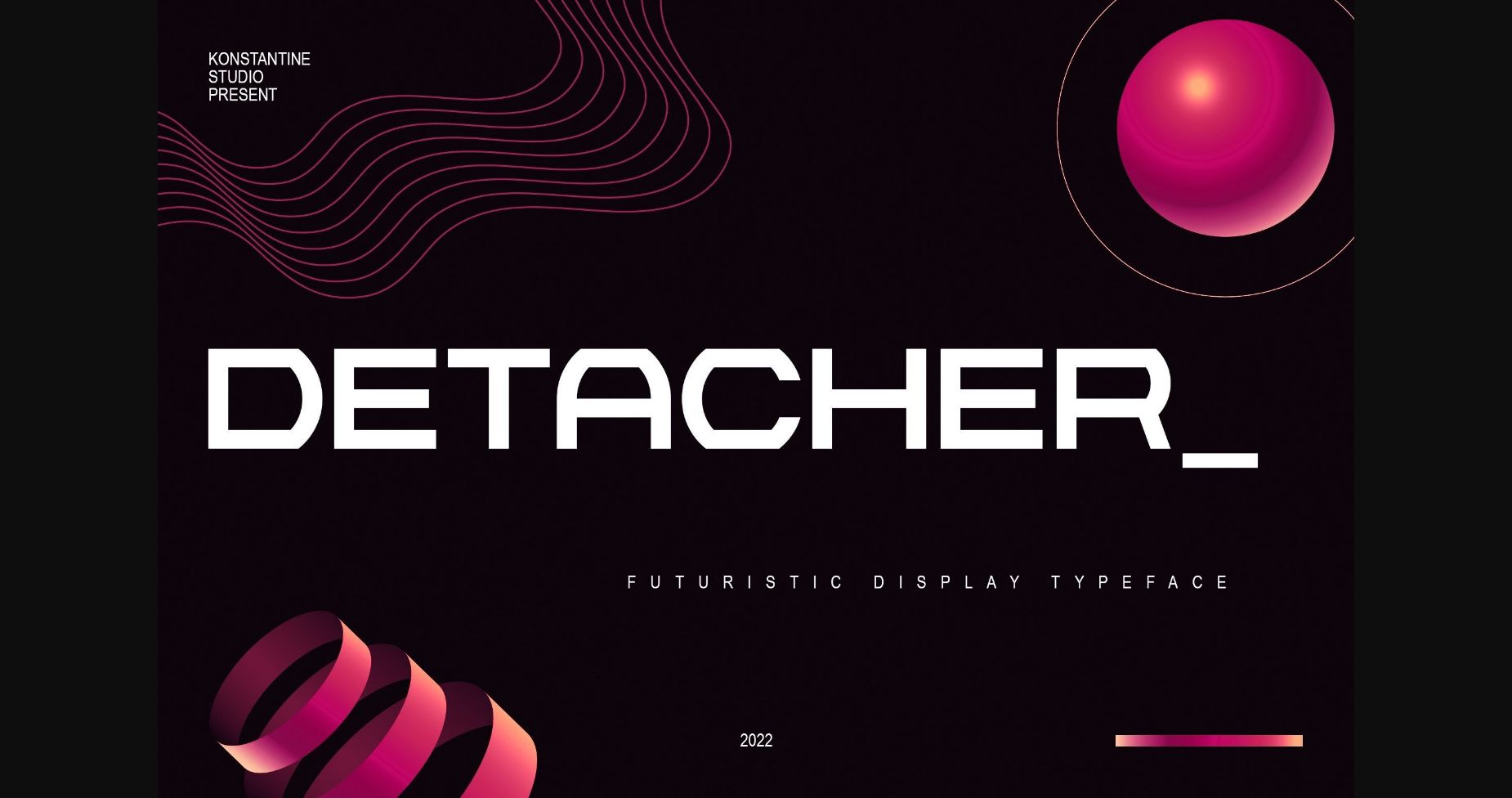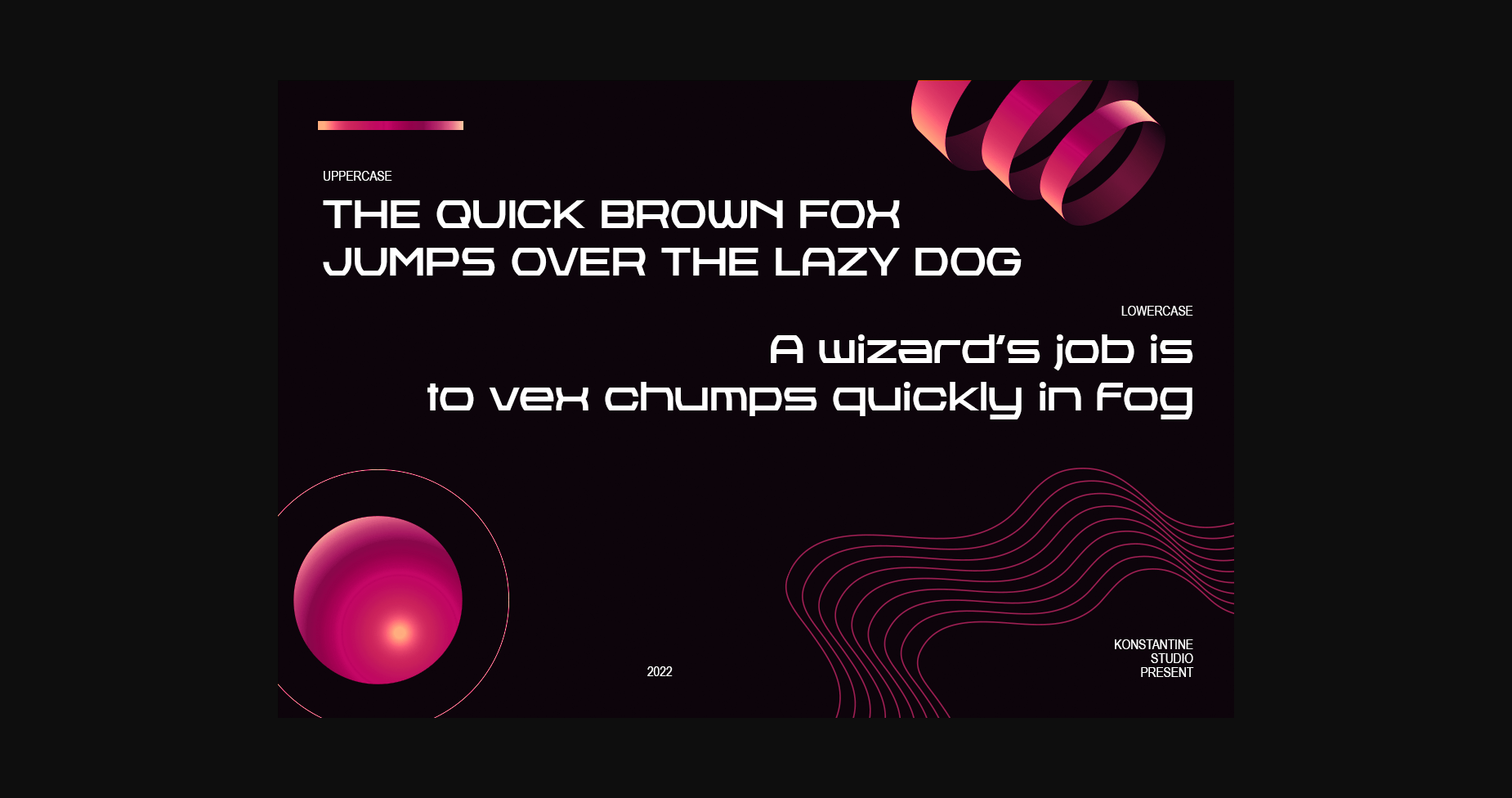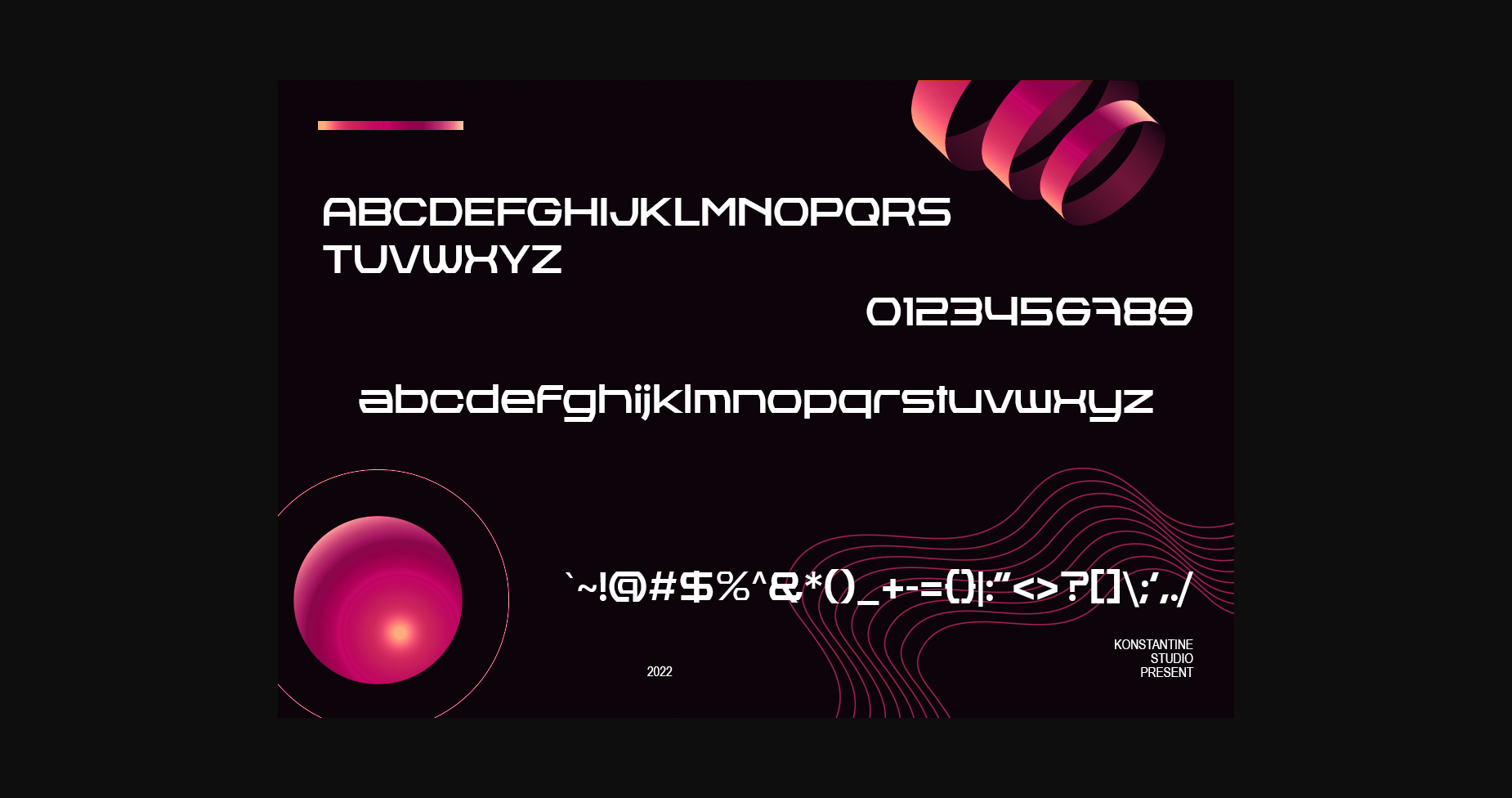
About Detacher Font
Detacher is a futuristic vibes font with a wide and bold body. To bring out the loudest statements for your visual.
Perfectly fit for poster design, logo, tech-wear, fashion, branding, anytime you need a futuristic touch.